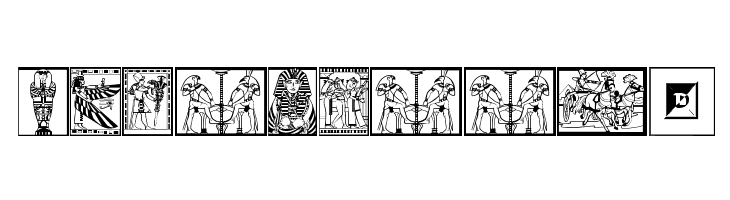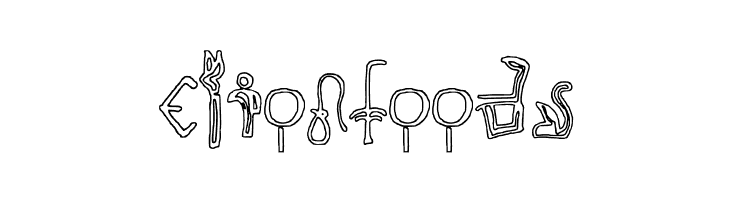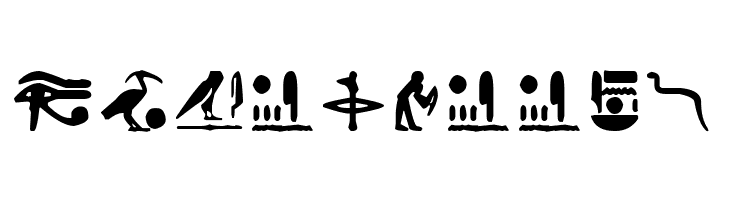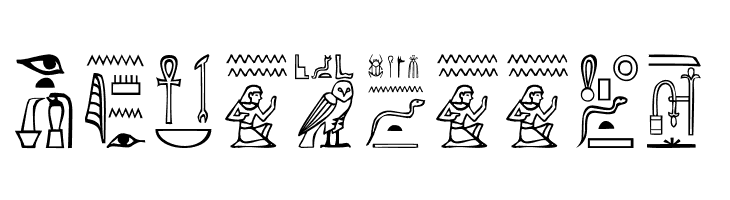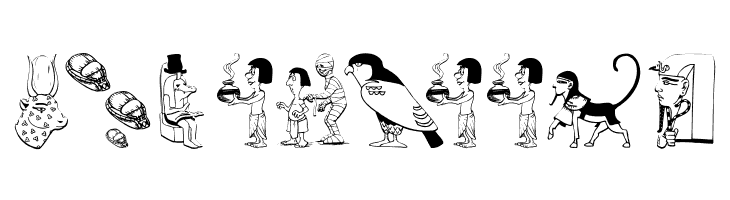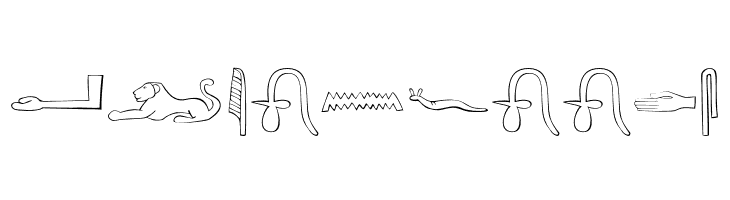
Egyptian Nights Font
A bold, decorative font with intricate patterns and geometric shapes.
Egyptian Font
A decorative set of Egyptian-themed illustrations, not a traditional font.
Noto Sans Egyptian Hieroglyphs Regular Font
EgyptianHieroglyphsSilhouette Font
Silhouette pictorial hieroglyphs in a bold, decorative style.
EgyptianFreehand Font
A bold, hand-drawn style font with thick, uneven strokes.
EgyptianSilhouettes Font
A pictorial silhouette font evoking ancient Egyptian motifs.
Egyptian Letters Font
Pictorial, hieroglyph-inspired decorative font.
Oval_Egyptian Font
A modern, geometric font with tall, narrow characters and excellent readability.
Fanda Egyptian Font
A bold slab serif font with strong, block-like serifs and consistent stroke width.
Non Solus Medium Font
A modern serif font with elegant and refined letterforms.
Egyptian Outline Regular Font
An artistic, hieroglyph-inspired font with outlined, decorative characters.
LMS Egyptian Bookends Font
A bold, decorative font with Egyptian-themed illustrations accompanying each letter.
Off_Ancient_Egyptian Font
A hieroglyphic, pictorial font mimicking ancient Egyptian script.